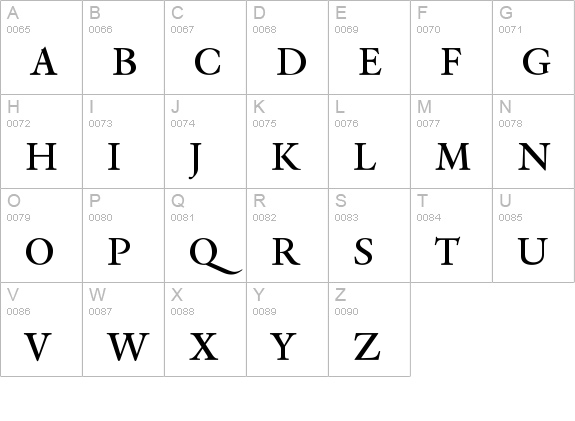
RenardNo1-Roman font is a stunning typeface that exudes elegance and sophistication. With its clean lines and balanced proportions, this font is perfect for adding a touch of refinement to any design project. The RenardNo1-Roman font is meticulously crafted, paying attention to every detail to ensure a seamless reading experience. Its classic and timeless design makes it versatile and suitable for various applications, from editorial design to branding and packaging. What sets the RenardNo1-Roman font apart is not only its impeccable design but also its accessibility. This font is freely available to download at FontsMarket.com, allowing designers and creatives of all backgrounds to easily access and utilize this exquisite typeface for their projects. Whether you are designing a logo for a high-end brand, creating an elegant wedding invitation, or crafting a visually captivating editorial layout, the RenardNo1-Roman font is the ideal choice. Its versatility, combined with its free availability, makes it a must-have addition to every designer's toolkit. Download the RenardNo1-Roman font today from FontsMarket.com and elevate your designs with its timeless beauty and effortless sophistication.